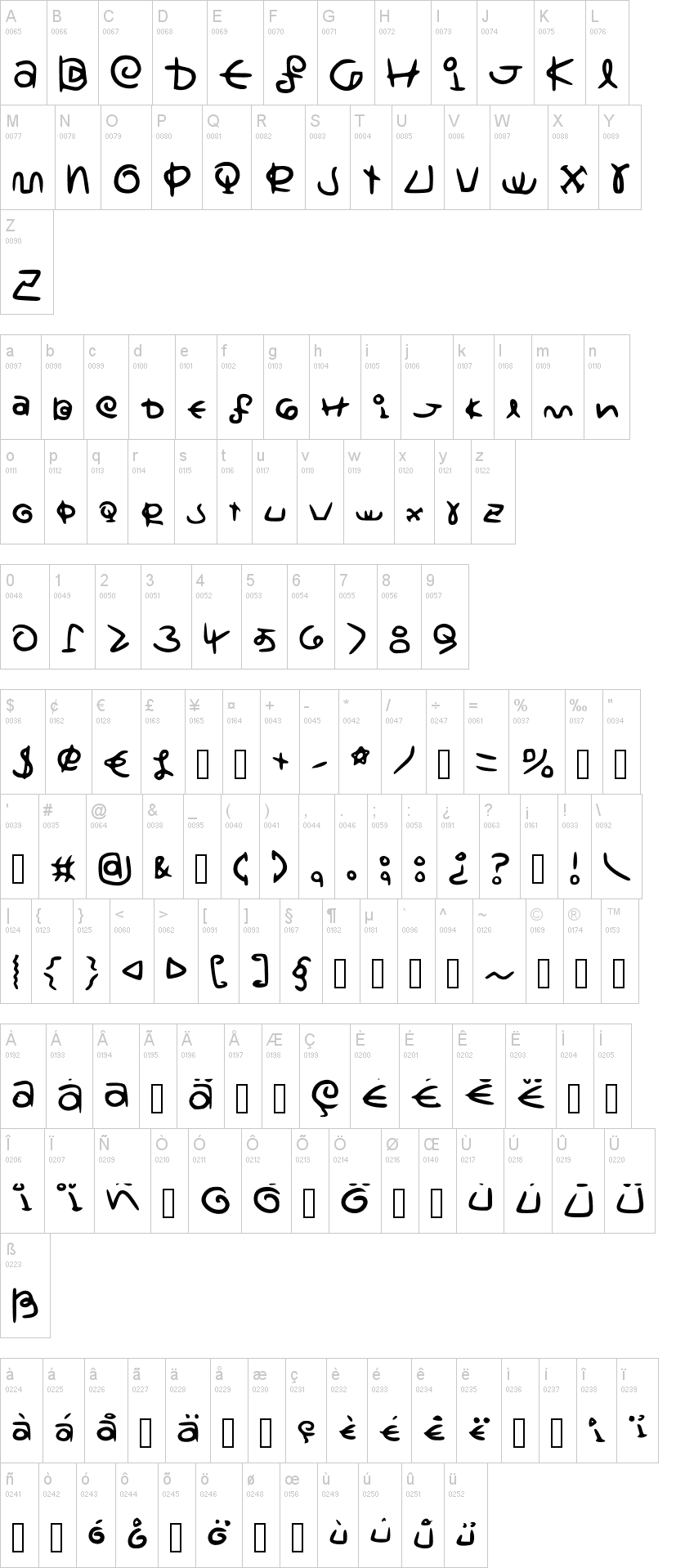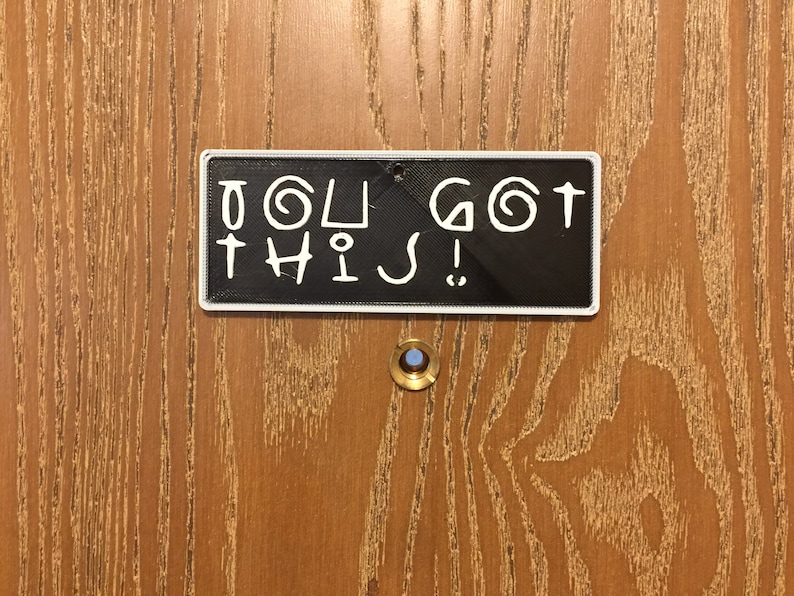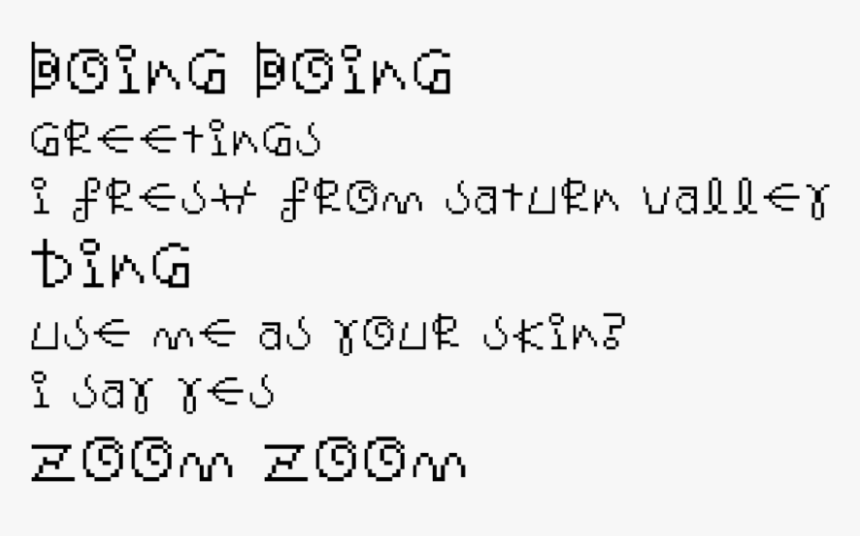
Mr Saturn Font
Mr Saturn Font - Just put the text you want to translate in the input box, and this. Looking for mr saturn fonts? Every font is free to download! Web download senor saturno font · free for commercial use · the font used for the mr. Saturns' dialogue in the super nintendo game earthbound. This text font was made using. Click to find the best 1 free fonts in the mr saturn style. Saturn font form both earthbound and mother 3 (enjoy this really weird font)!! Web it’s just my attempt at making the mr. Saturn fonts or vice versa.
Saturn font form both earthbound and mother 3 (enjoy this really weird font)!! Just put the text you want to translate in the input box, and this. Looking for mr saturn fonts? Saturn fonts or vice versa. Saturns' dialogue in the super nintendo game earthbound. This text font was made using. Click to find the best 1 free fonts in the mr saturn style. Web this is a simple, easy to use and free online tool that converts regular text into mr. Web it’s just my attempt at making the mr. Saturn font generator is an online tool that allows fans and enthusiasts of the earthbound series to create custom text in the style of mr.
Saturn fonts or vice versa. This text font was made using. Web download senor saturno font · free for commercial use · the font used for the mr. Click to find the best 1 free fonts in the mr saturn style. Saturn font generator is an online tool that allows fans and enthusiasts of the earthbound series to create custom text in the style of mr. Every font is free to download! Just put the text you want to translate in the input box, and this. Web it’s just my attempt at making the mr. Web this is a simple, easy to use and free online tool that converts regular text into mr. Looking for mr saturn fonts?
Saturn font generator is an online tool that allows fans and enthusiasts of the earthbound series to create custom text in the style of mr. Web this is a simple, easy to use and free online tool that converts regular text into mr. Saturn font form both earthbound and mother 3 (enjoy this really weird font)!! Web download senor saturno.
Web download senor saturno font · free for commercial use · the font used for the mr. Click to find the best 1 free fonts in the mr saturn style. Saturns' dialogue in the super nintendo game earthbound. Saturn font form both earthbound and mother 3 (enjoy this really weird font)!! Saturn font generator is an online tool that allows.
This text font was made using. Saturns' dialogue in the super nintendo game earthbound. Click to find the best 1 free fonts in the mr saturn style. Saturn font generator is an online tool that allows fans and enthusiasts of the earthbound series to create custom text in the style of mr. Every font is free to download!
Saturn fonts or vice versa. Every font is free to download! Looking for mr saturn fonts? Saturn font form both earthbound and mother 3 (enjoy this really weird font)!! Click to find the best 1 free fonts in the mr saturn style.
Saturn font generator is an online tool that allows fans and enthusiasts of the earthbound series to create custom text in the style of mr. Saturn font form both earthbound and mother 3 (enjoy this really weird font)!! Saturn fonts or vice versa. Web download senor saturno font · free for commercial use · the font used for the mr..
Web download senor saturno font · free for commercial use · the font used for the mr. Web this is a simple, easy to use and free online tool that converts regular text into mr. Saturn fonts or vice versa. Looking for mr saturn fonts? Saturn font generator is an online tool that allows fans and enthusiasts of the earthbound.
Web it’s just my attempt at making the mr. Saturns' dialogue in the super nintendo game earthbound. Every font is free to download! Saturn font generator is an online tool that allows fans and enthusiasts of the earthbound series to create custom text in the style of mr. Web download senor saturno font · free for commercial use · the.
Saturn font generator is an online tool that allows fans and enthusiasts of the earthbound series to create custom text in the style of mr. Web download senor saturno font · free for commercial use · the font used for the mr. Web this is a simple, easy to use and free online tool that converts regular text into mr..
Saturns' dialogue in the super nintendo game earthbound. Every font is free to download! Saturn fonts or vice versa. Web this is a simple, easy to use and free online tool that converts regular text into mr. Web download senor saturno font · free for commercial use · the font used for the mr.
Web it’s just my attempt at making the mr. Saturn font generator is an online tool that allows fans and enthusiasts of the earthbound series to create custom text in the style of mr. Just put the text you want to translate in the input box, and this. Saturn fonts or vice versa. Saturn font form both earthbound and mother.
This Text Font Was Made Using.
Web it’s just my attempt at making the mr. Every font is free to download! Web this is a simple, easy to use and free online tool that converts regular text into mr. Saturns' dialogue in the super nintendo game earthbound.
Saturn Font Form Both Earthbound And Mother 3 (Enjoy This Really Weird Font)!!
Looking for mr saturn fonts?